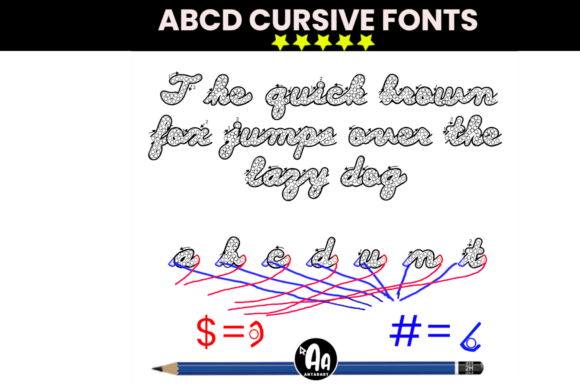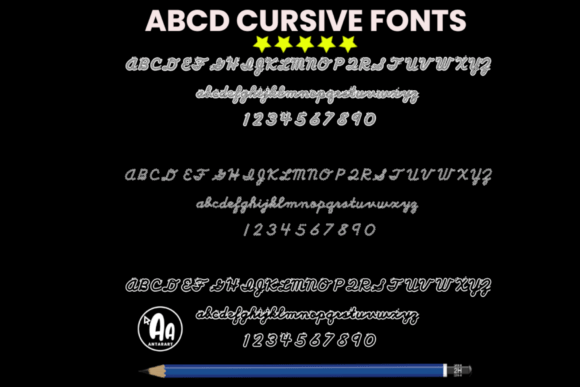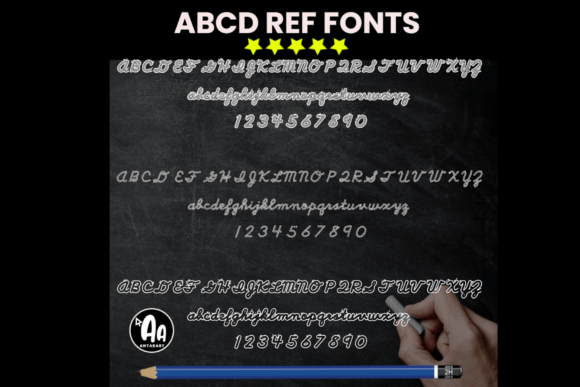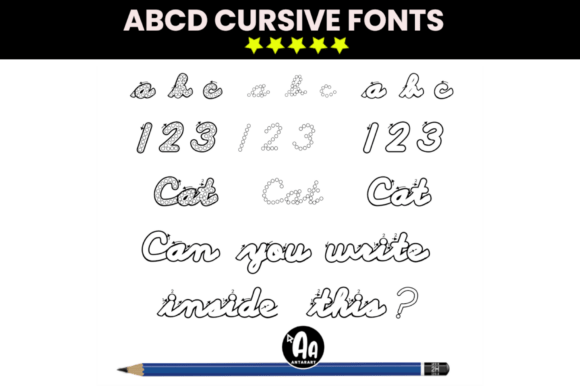
Introduction to Abcd Cursive Dot Marker Font
Remember the joy of creating with your children, watching them learn and grow with each new skill? As a parent, teacher, or caregiver, you’re always on the lookout for engaging tools to make learning fun and effective. That’s where the Abcd Cursive Dot Marker Font comes in – a high-quality design resource that brings cursive writing to life for kids of all ages.
This versatile font is more than just a pretty face; it’s a valuable asset for designers, educators, and parents alike. With its transparent background and free download option, you can easily incorporate it into your creative projects, from printable worksheets to DIY tracing books. The Abcd Cursive Dot Marker Font is based on the D’Nealian handwriting method, making it an excellent resource for improving handwriting, fine motor skills, and letter recognition.
Key Features of Abcd Cursive Dot Marker Font
- High-quality design resource ideal for creative projects, such as invitations, greeting cards, and scrapbooking.
- Designed with a unique cursive style featuring dot markers, adding a touch of whimsy and playfulness to any project.
Honest Review: Abcd Cursive Dot Marker Font
As a designer, I’m always on the lookout for high-quality design resources to elevate my creative projects. Recently, I stumbled upon the Abcd Cursive Dot Marker Font, and I’m excited to share my thoughts on it.
What works well: ✨ The Abcd Cursive Dot Marker Font is a beautiful, hand-drawn font that adds a touch of whimsy to any design. The high-quality vector graphics make it perfect for use on transparent backgrounds, which is ideal for web design and other applications where a clean, non-fussy look is desired.
What doesn’t work so well: ⚠️ One limitation of this font is that it’s not suitable for use in large blocks of text, as the cursive nature of the font can make it difficult to read. Additionally, the font is a free download, which means it may not be as polished as some paid fonts.
Overall, I’m impressed with the Abcd Cursive Dot Marker Font as a design resource. It’s perfect for adding a decorative touch to creative projects, and its transparent background makes it easy to integrate into a variety of designs.
- High-quality vector graphics
- Hand-drawn design
- Perfect for use on transparent backgrounds
To get the most out of the Abcd Cursive Dot Marker Font, use it for titles, headings, and accents in your design. This font is particularly useful for creating a whimsical and playful feel in your creative project. You can also use it to create a consistent design style across multiple elements in your design.